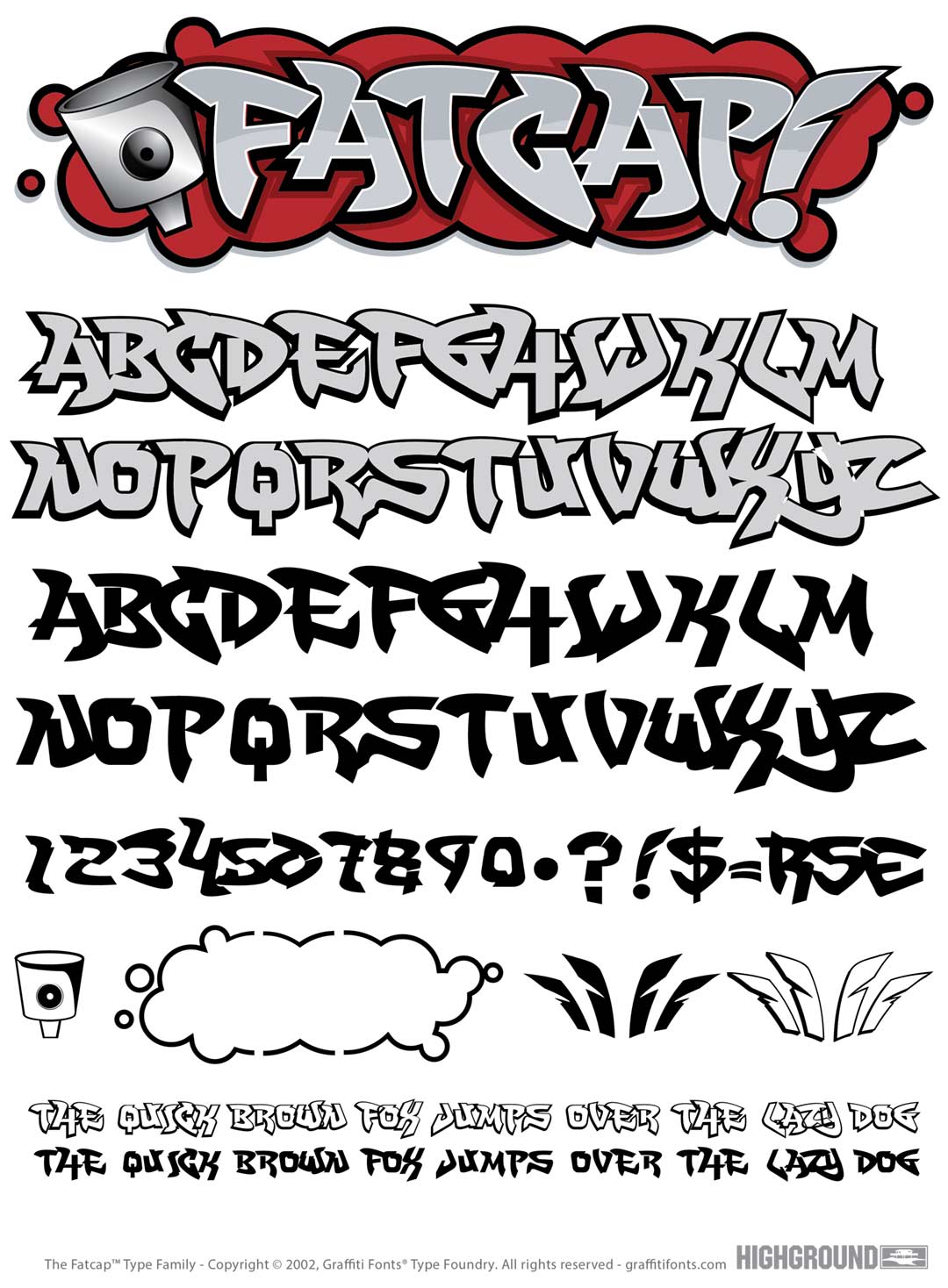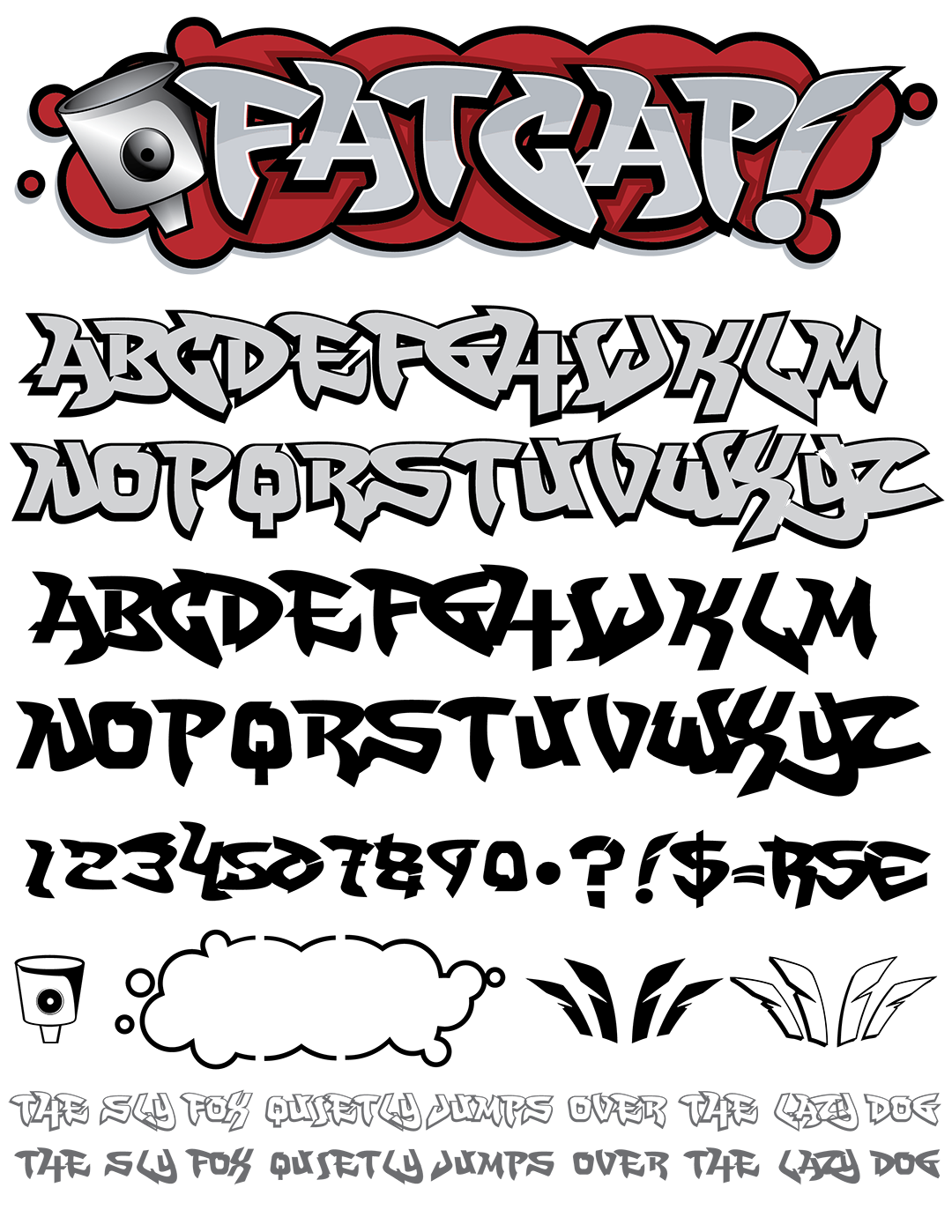
FatCap Font
FatCap Graffiti Alphabet
FatCap Graffiti Font Family
Oldschool graffiti letters inspired by early 90s style stamps and throw ups. Fatcap includes 88 individual characters including spraycans & caps and a repeatable cloud that can fit around a word of any length. This font features a thick, clean outline style letters as uppercase & solid fill style letters for lowercase.